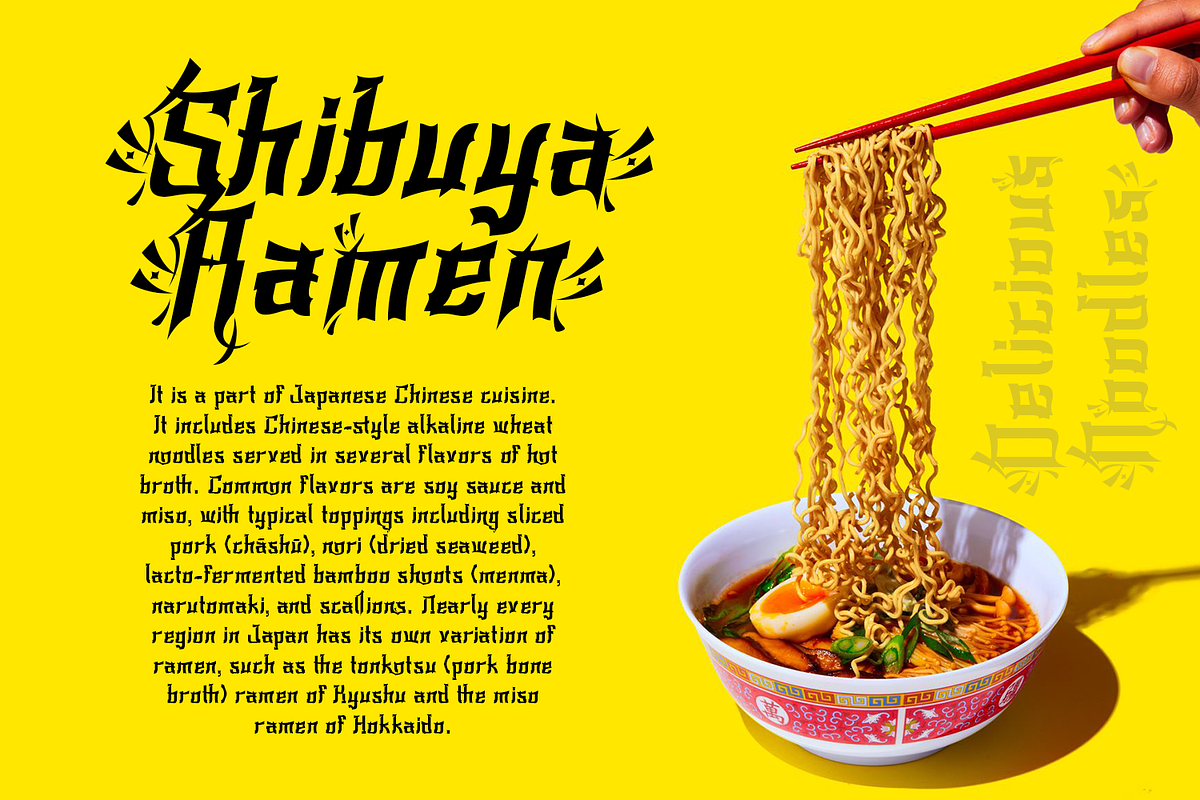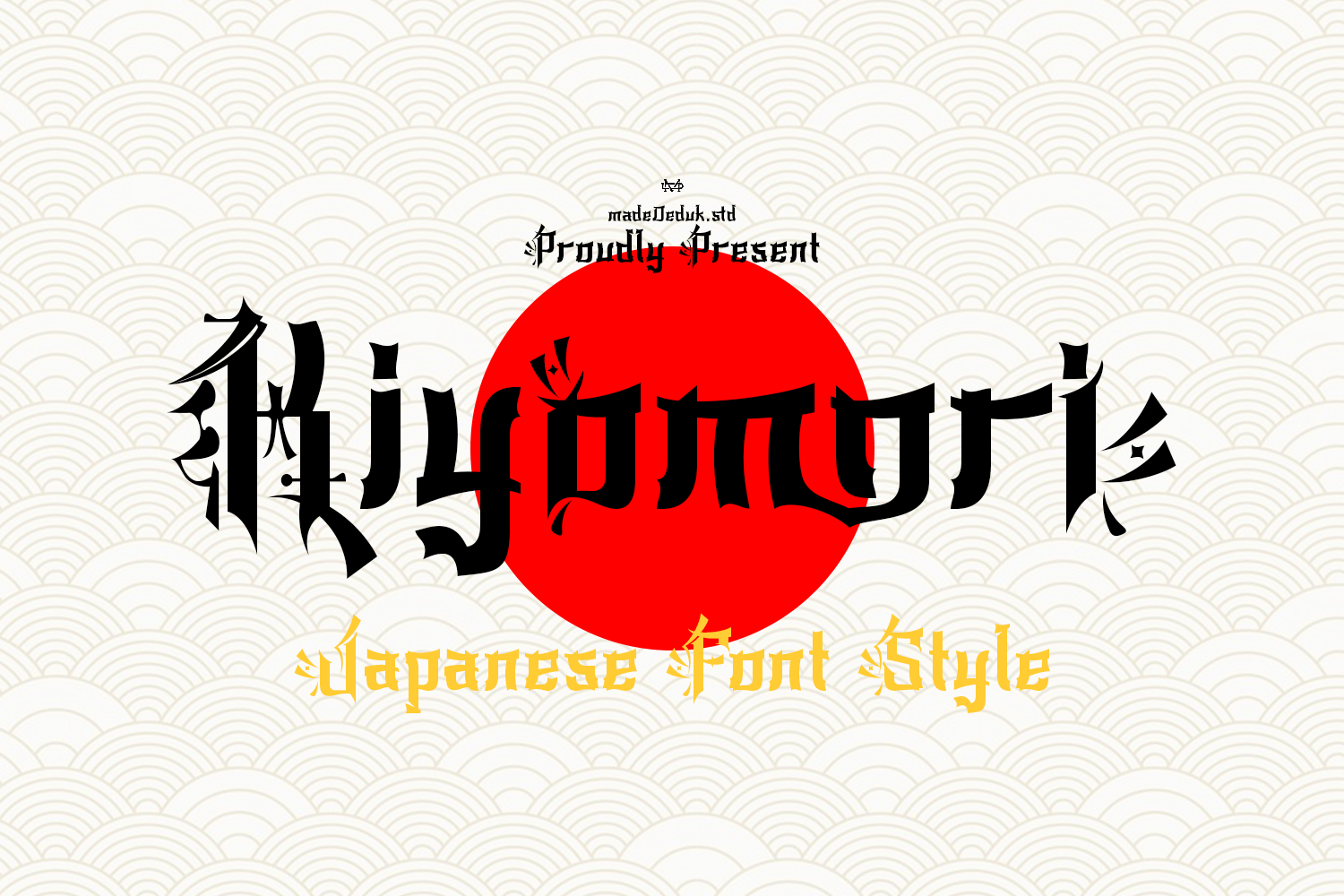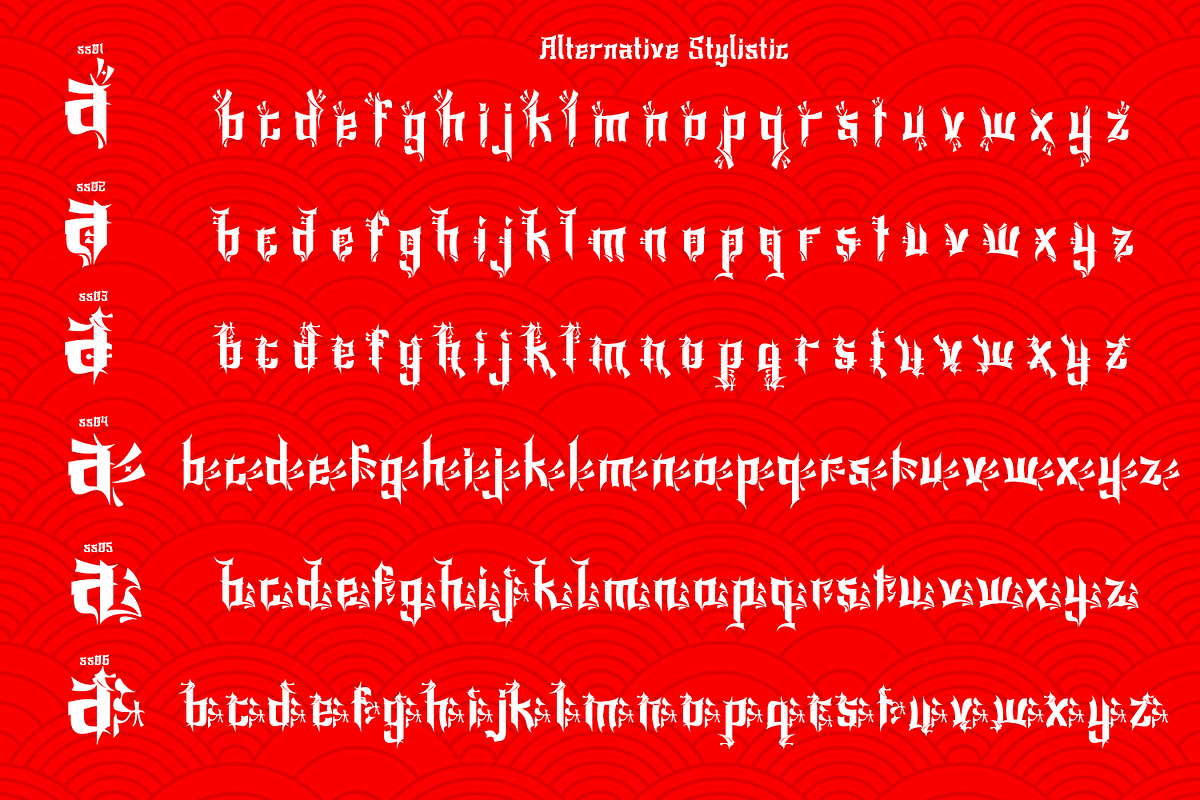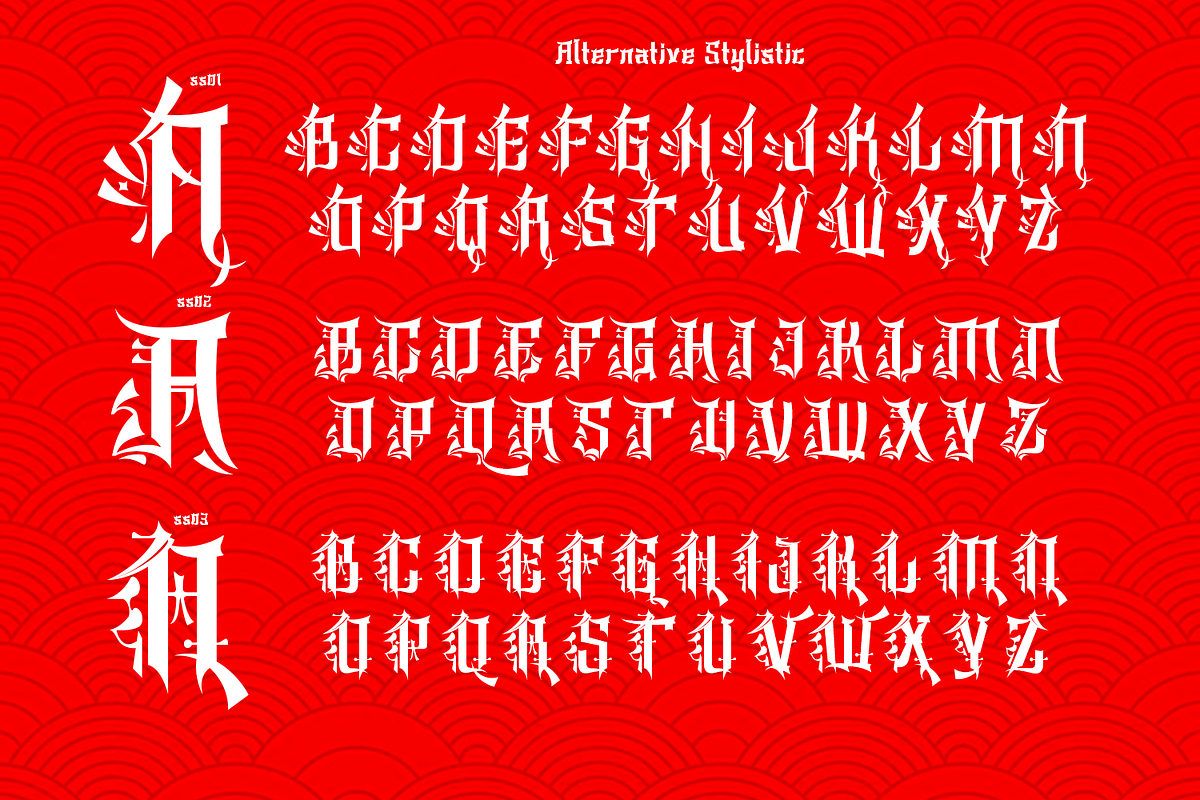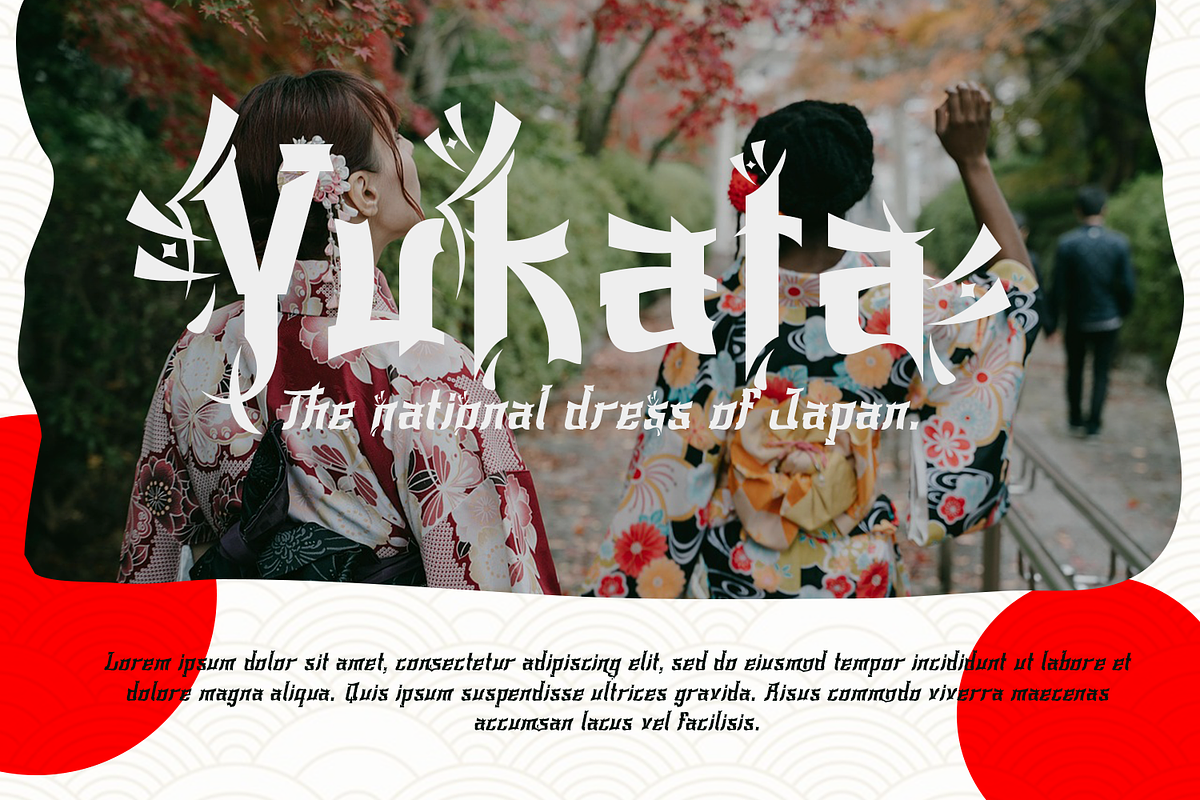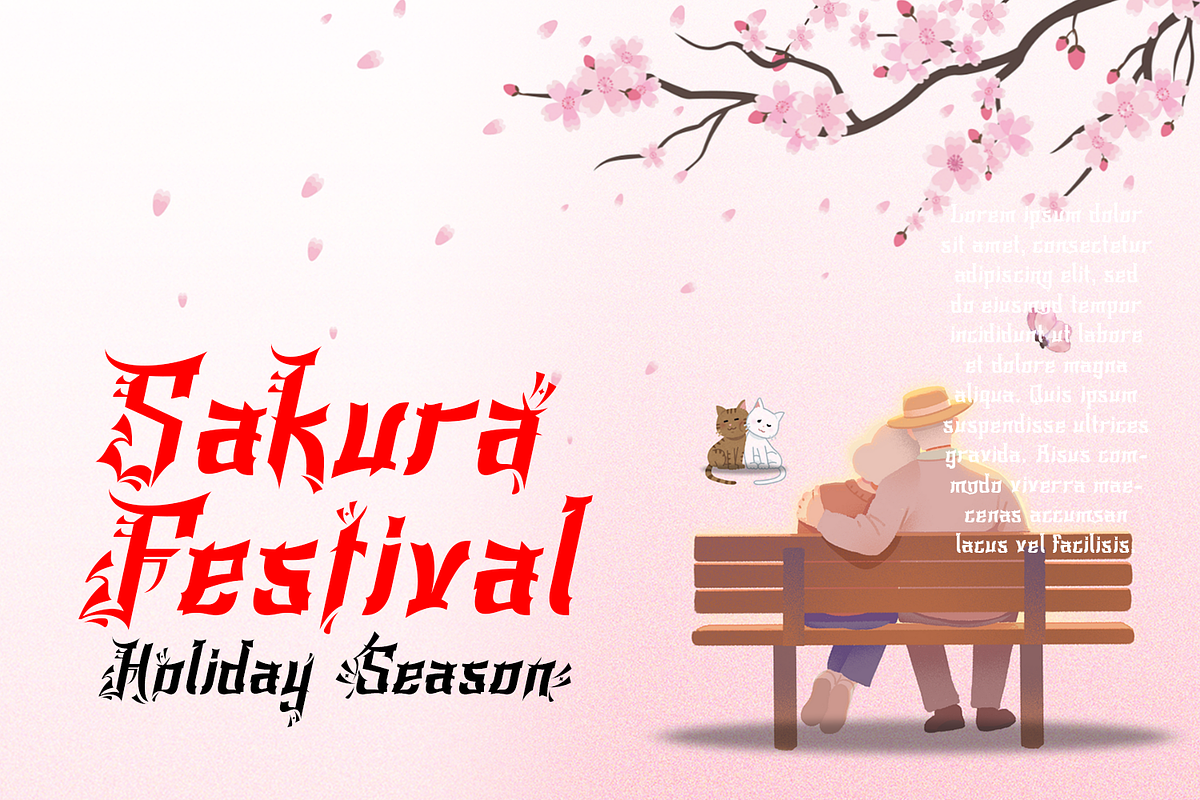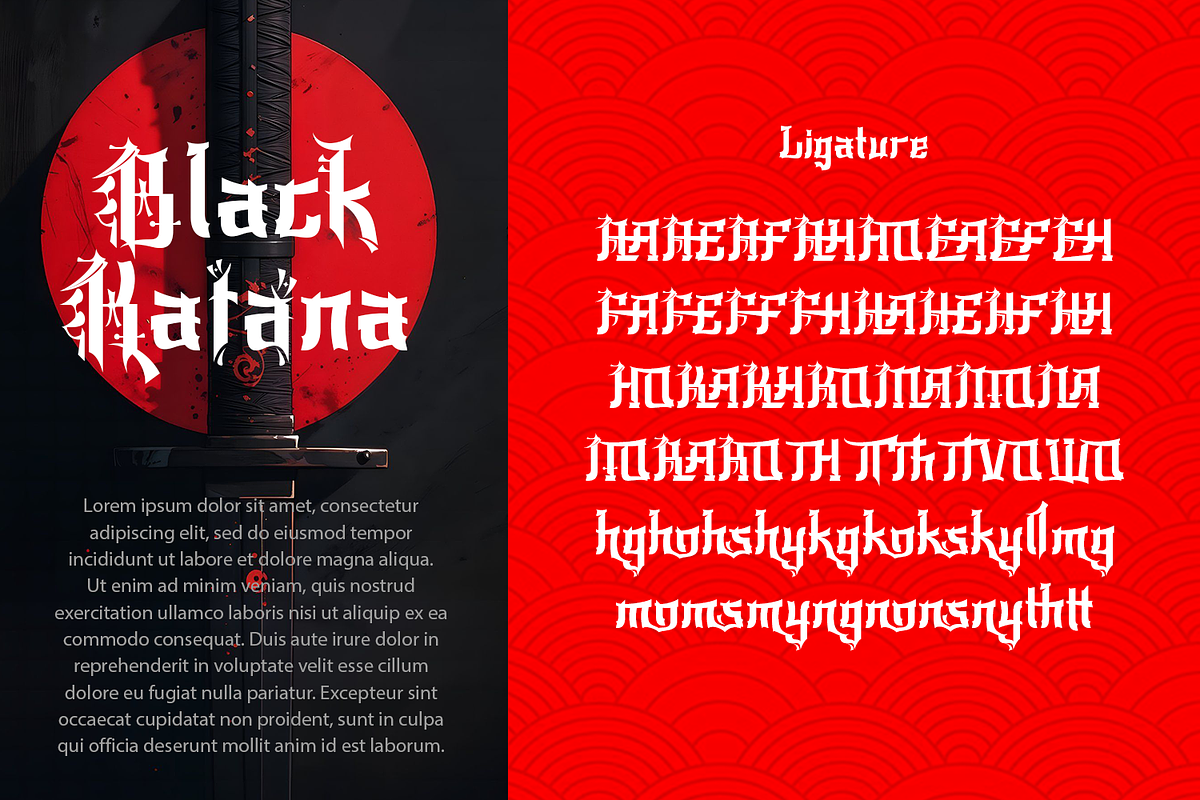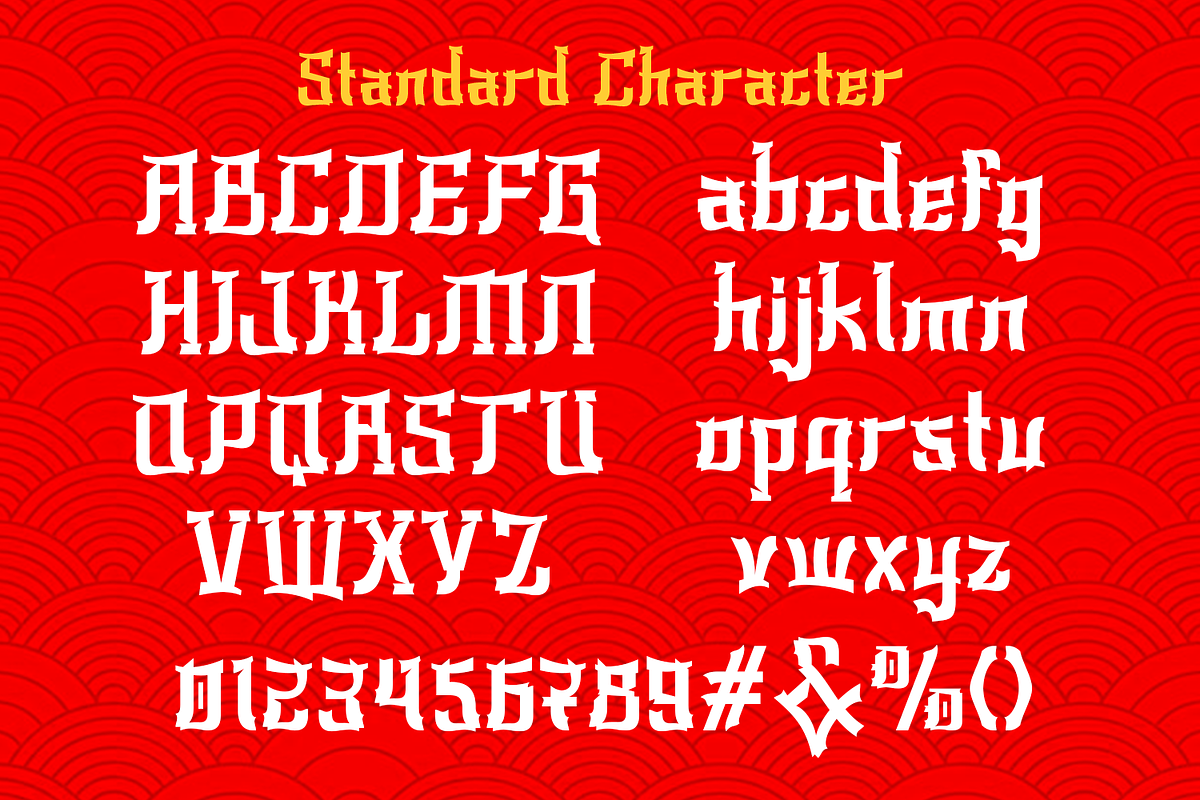
Kiyomori - Japanese Font
Introducing Kiyomori, this font presents a strong visual character inspired by classic Japanese aesthetics, particularly the spirit of samurai culture and traditional kanji calligraphy. Its letterforms are sharp and angular, with pointed terminals that resemble controlled brush strokes of sumi ink. The vertical structure feels disciplined and commanding, while the diagonal cuts and dramatic edges evoke the precision and energy of a katana blade. Each character blends gothic boldness with the expressive soul of Japanese calligraphic art.
In application, this font works exceptionally well for Japanese-themed designs, whether traditional or modern—such as streetwear branding, cultural posters, music titles, or visual projects. It delivers a bold, artistic, and distinctive presence, helping create a powerful visual identity. The combination of classic influence and contemporary edge makes this typeface dramatic yet highly relevant for modern design contexts.